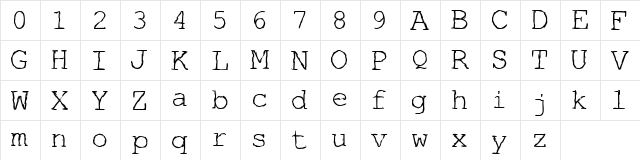
Screenwriter's Nightmare Regular Font Preview
Screenwriter's Nightmare Regular
Screenwriter's Nightmare Regular Font Details
Design Context for Screenwriter's Nightmare Typeface
Screenwriter's Nightmare takes a measured approach to typography — its balanced proportions and neutral character make it a reliable workhorse for both digital and print work.